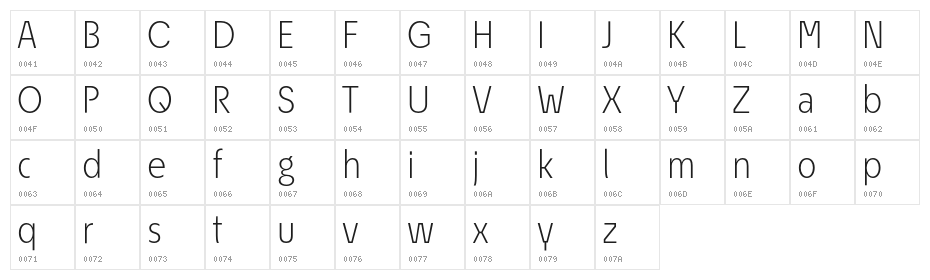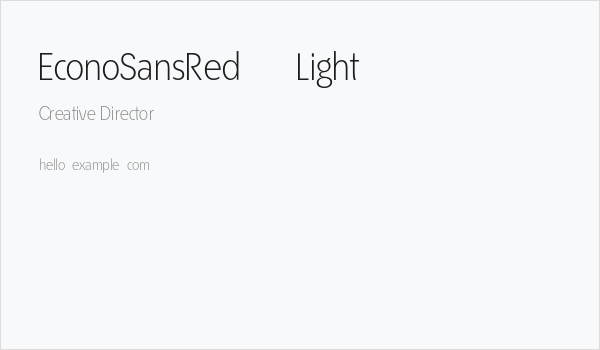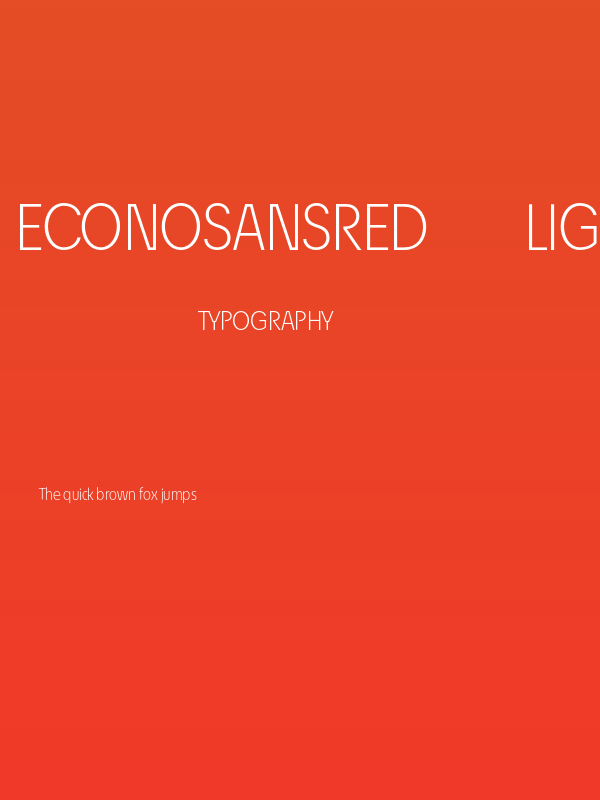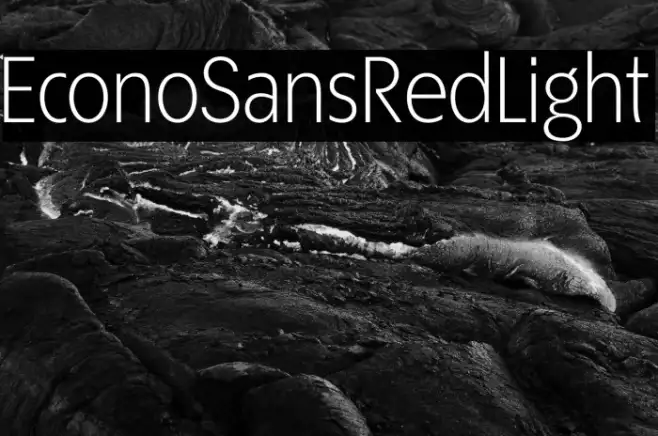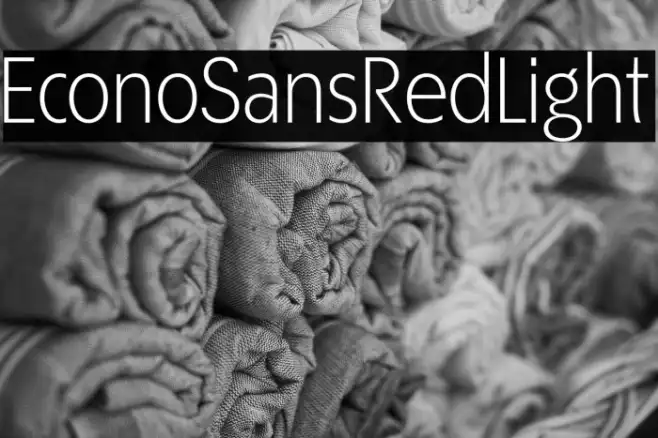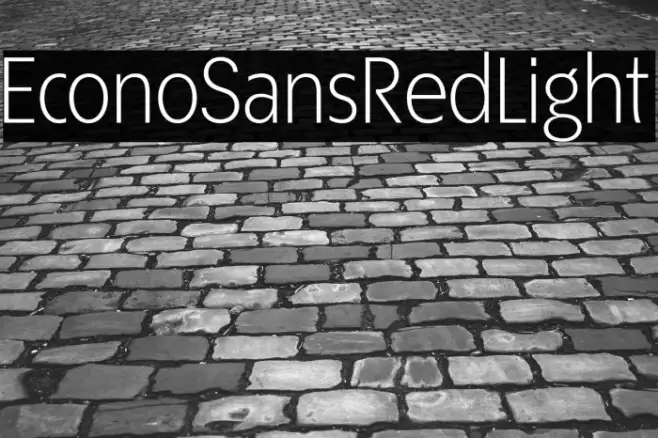
EconoSansRed-45Light Font
EconoSansRed-45Light Description
This font features a clean and modern sans-serif design, characterized by its geometric shapes and uniform stroke widths. The uppercase letters are tall and slightly condensed, providing a sleek and professional appearance. The lowercase letters maintain a consistent height, contributing to a balanced and harmonious look. The numerals are clear and easy to read, matching the overall aesthetic of the font. Special characters are well-defined, ensuring versatility in various applications. The font's simplicity and clarity make it suitable for both digital and print media.
| Proposed Projects | Ideal for corporate branding, web design, editorial layouts, and user interfaces. |